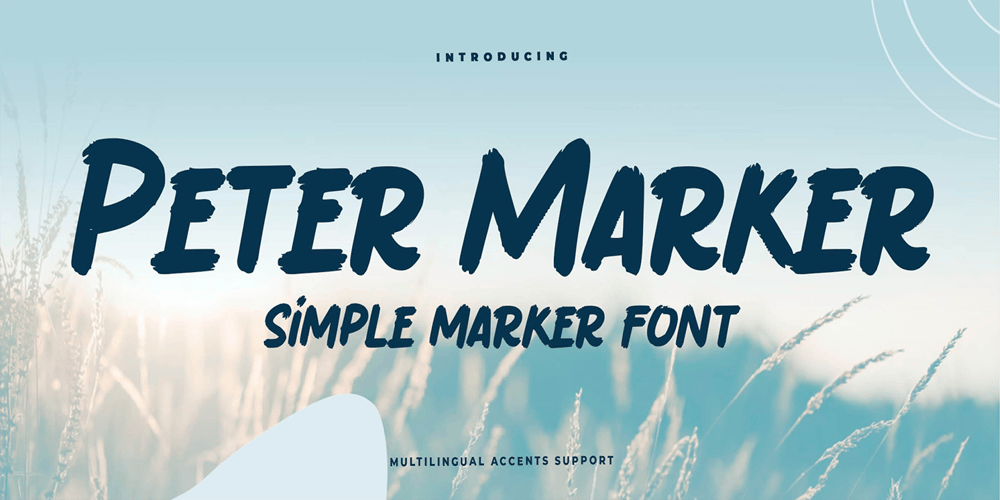
Peter Marker Font Family was designed by Abdul Malik Wisnu, Anang Fibriyanto and published by Gassstype. Peter Marker contains 1 styles and family package options. Hello Everyone, introduce our new product Peter Marker It Is Simple Marker Font with a natural feel. This handmade font will make your design has a beautiful natural touch for each details. It is perfect for any design project as Invitation,logo, book cover, craft or any design purposes.Peter Marker is Inspired by Food Logo style and combination.